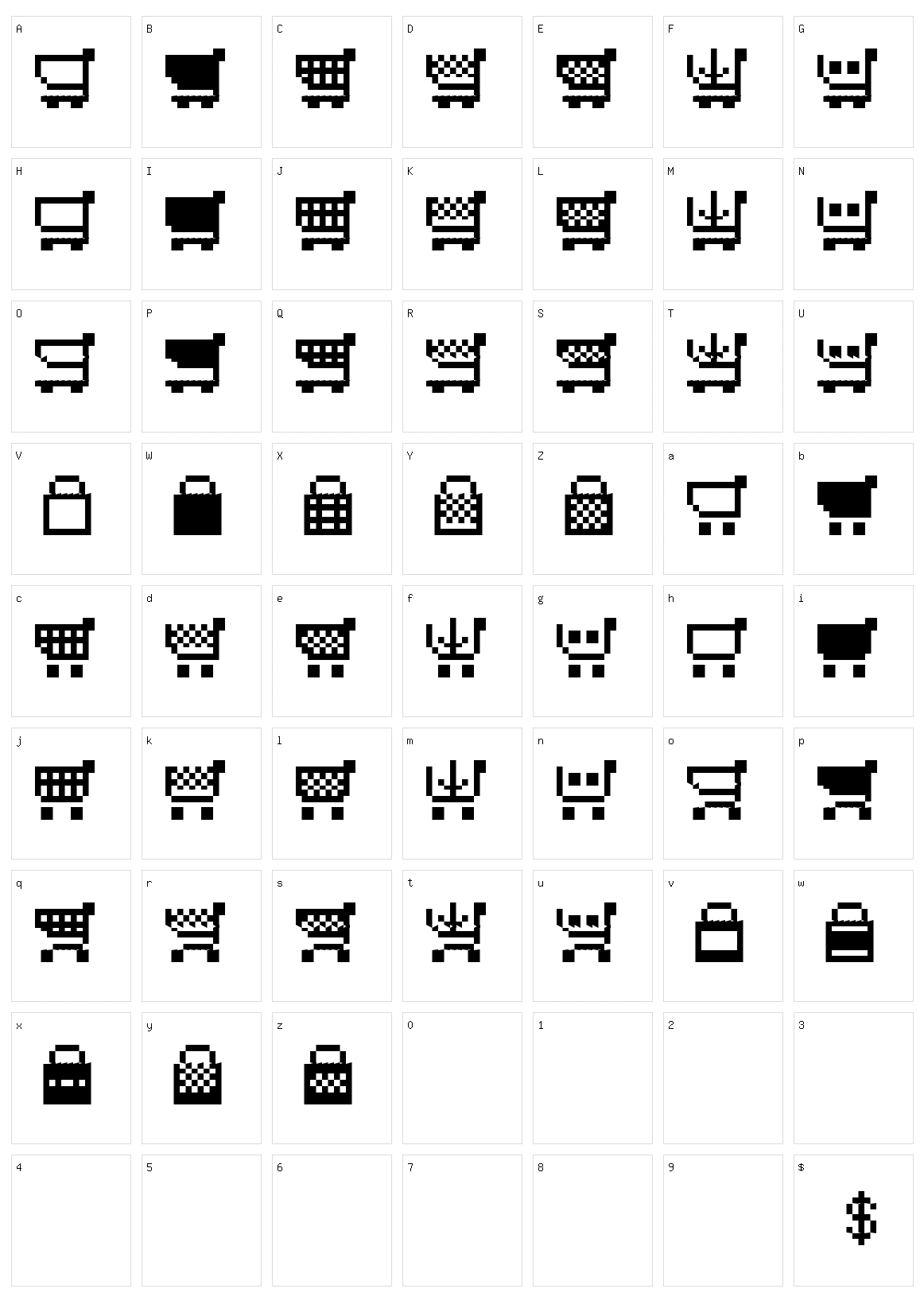
Btd Cart-O-Grapher
Designed by: BTD
Sometime in 2001, I created a font called Cart-O-Grapher after being tired
of having to make shopping cart icon everytime I worked on a ecommerce site.
This is just a pixel version of that font.